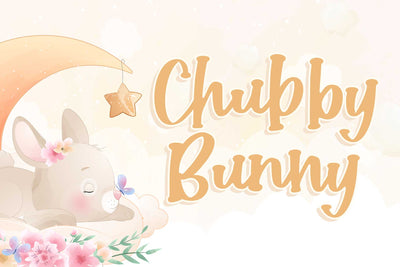
Chubby Bunny - A Quirky Handwritten Font
Chubby Bunny is a quirky serif font that can add playfulness and authenticity to any creation. Add it to product packaging, name tags, labelling, branding, and more!